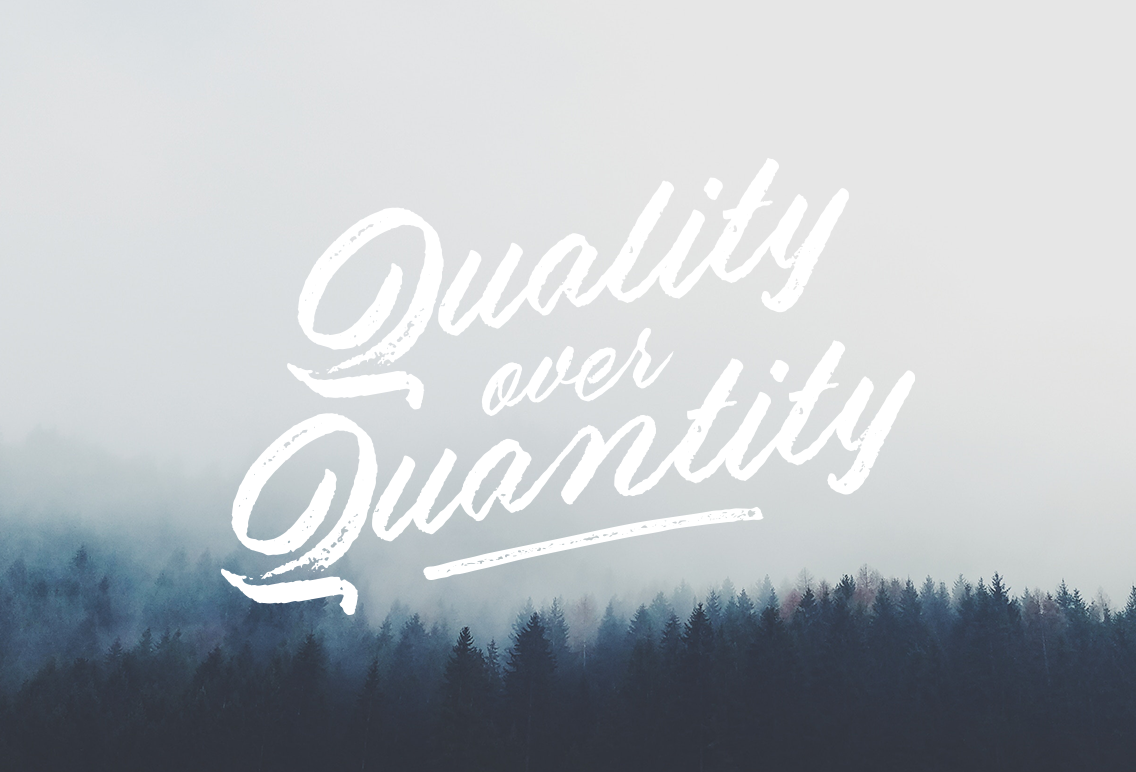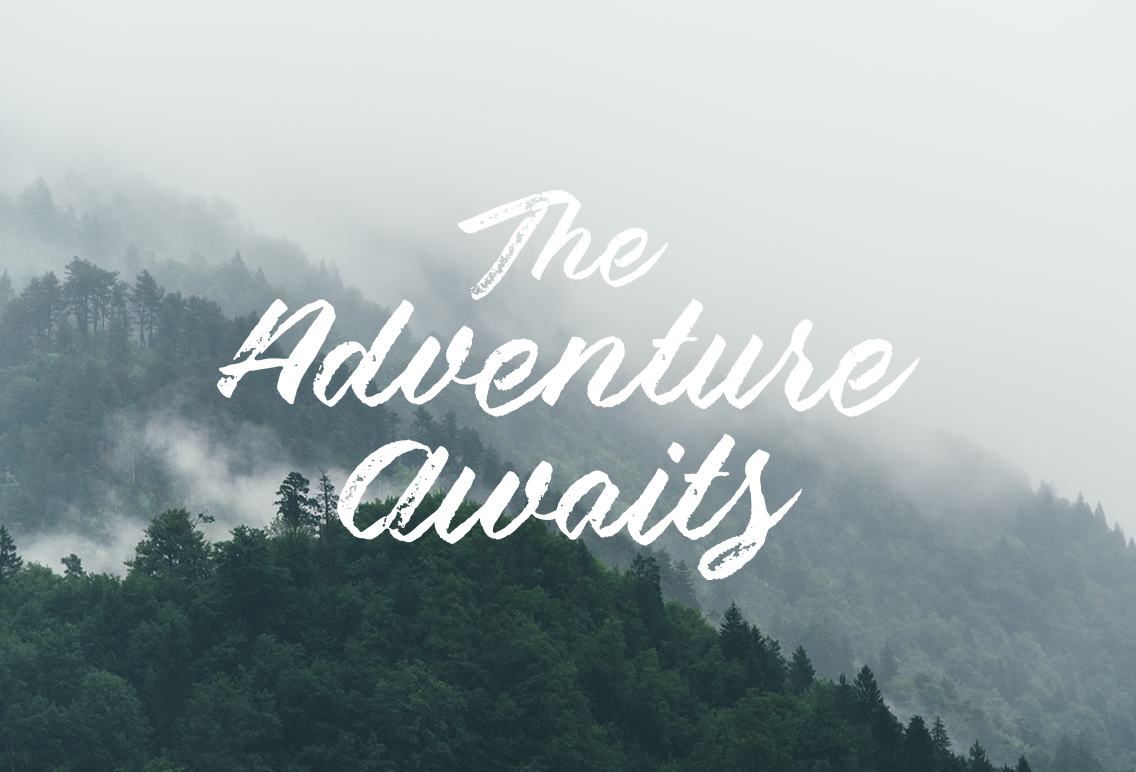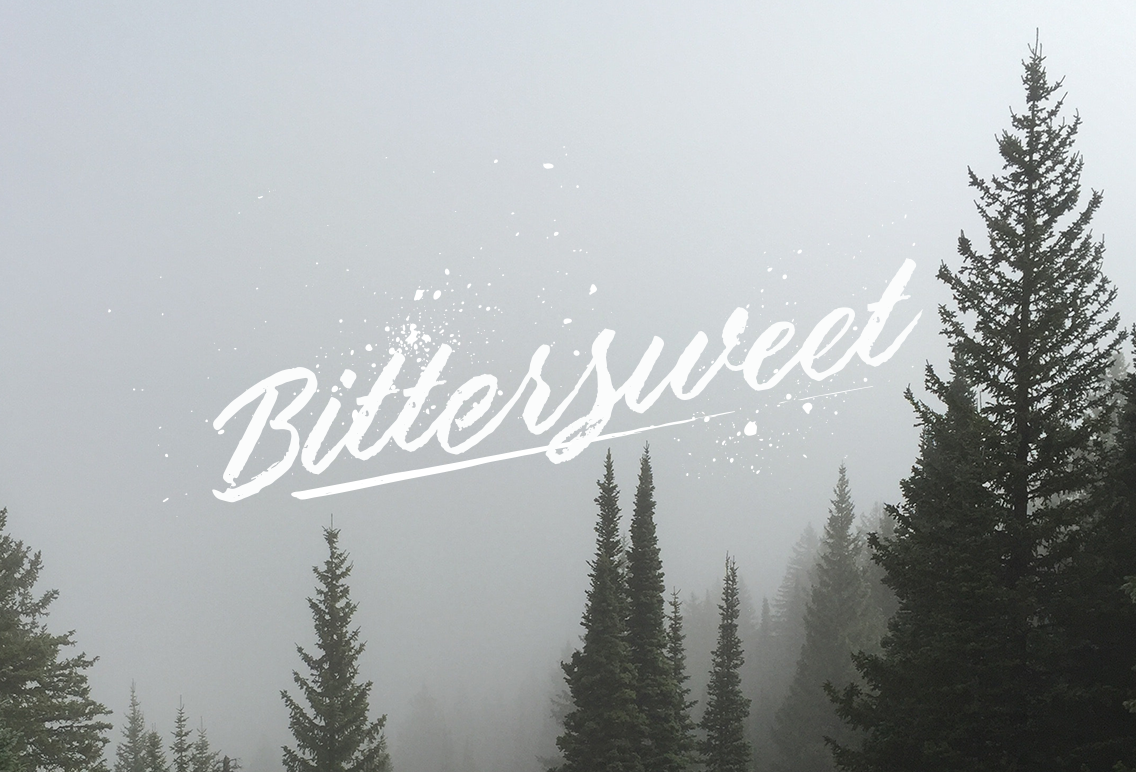
Introducing Grandfather Font: A Handwritten Brush Script with a Personal Touch
Are you tired of using the same old fonts in your designs? Look no further than Grandfather Font, a beautiful handwritten brush script that adds a personal touch to any project. Inspired by the majestic Grandfather Mountain in North Carolina, this font is perfect for designers and crafters looking to add a unique and handcrafted feel to their work.
The Inspiration Behind Grandfather Font
Grandfather Font takes its name and inspiration from Grandfather Mountain, a iconic landmark in North Carolina known for its stunning natural beauty. The font’s creator was drawn to the mountain’s rugged yet elegant appearance, and sought to capture its essence in a digital font. The result is a font that feels both organic and refined, with a unique character that sets it apart from more traditional fonts.
Characteristics of Grandfather Font
So what makes Grandfather Font so special? Here are just a few of its key characteristics:
- Handwritten brush script: Grandfather Font is a true handwritten font, with each letter and connection carefully crafted to mimic the look and feel of a brush script.
- Bouncy baseline: The font features a somewhat bouncy baseline, giving it a lively and energetic feel that’s perfect for display projects.
- Flowy connections: The connections between letters are smooth and flowing, adding to the font’s handcrafted feel.
- Unique character: Grandfather Font has a truly unique character that sets it apart from other fonts. Its combination of elegance and playfulness makes it perfect for a wide range of design projects.
Uses for Grandfather Font
So what can you use Grandfather Font for? The possibilities are endless! Here are just a few ideas to get you started:
- Display projects: Grandfather Font is perfect for use in display projects, such as posters, signs, and logos.
- Branding: The font’s unique character makes it a great choice for branding projects, such as business cards and letterheads.
- Packaging: Grandfather Font would look great on product packaging, adding a personal touch to your products.
- Invitations: The font’s elegant and refined feel makes it perfect for use in invitations, such as wedding invitations and party invites.
Why Choose Grandfather Font?
With so many fonts to choose from, why should you choose Grandfather Font? Here are just a few reasons:
- Unique character: Grandfather Font has a truly unique character that sets it apart from other fonts.
- Handcrafted feel: The font’s handwritten brush script and flowy connections give it a handcrafted feel that’s perfect for designers and crafters.
- Elegant and refined: Despite its playful feel, Grandfather Font is also elegant and refined, making it perfect for use in a wide range of design projects.
- Easy to read: The font is easy to read, even at small sizes, making it perfect for use in body text as well as display projects.
| Font Name | Grandfather Font |
| Author | 1871 Project |
In conclusion, Grandfather Font is a beautiful handwritten brush script font that adds a personal touch to any design project. With its unique character, handcrafted feel, and elegant and refined appearance, it’s perfect for designers and crafters looking to add a touch of personality to their work. Whether you’re working on a display project, branding project, or packaging design, Grandfather Font is a great choice. So why not give it a try and see the difference it can make in your designs?